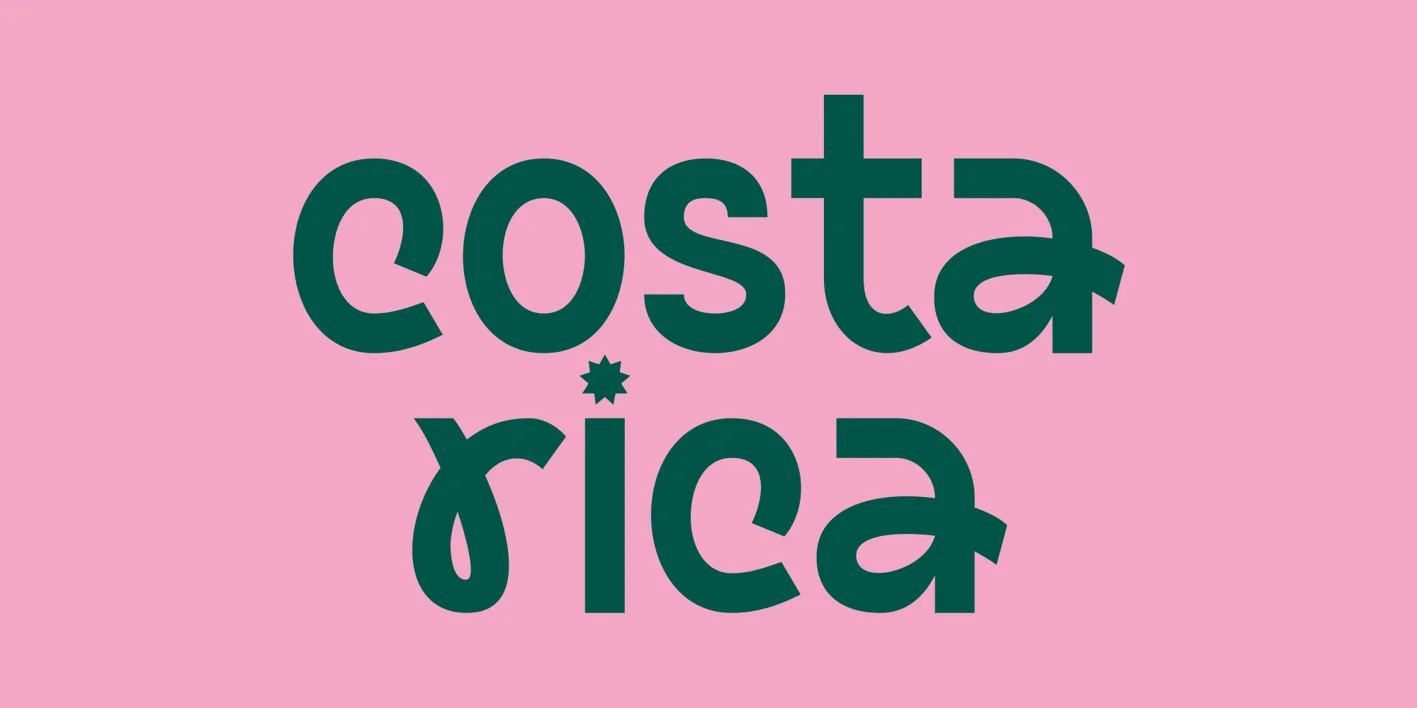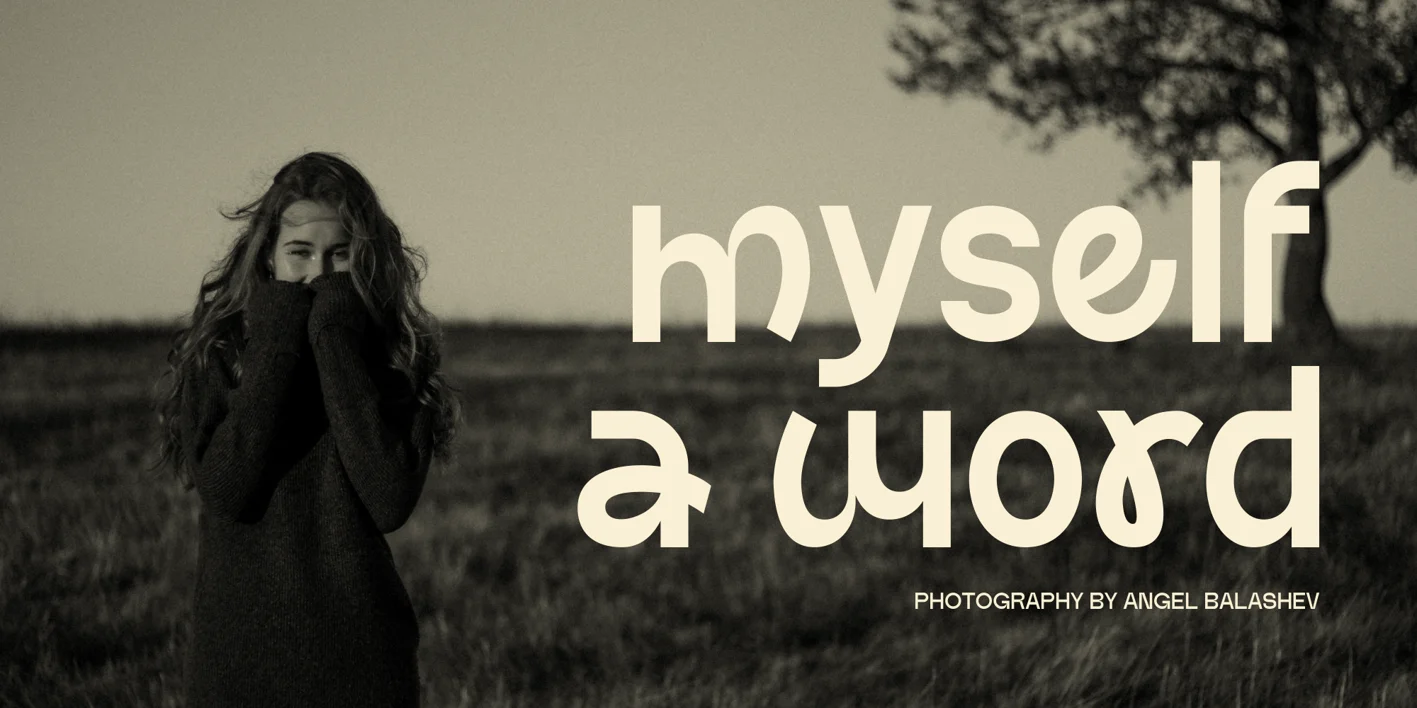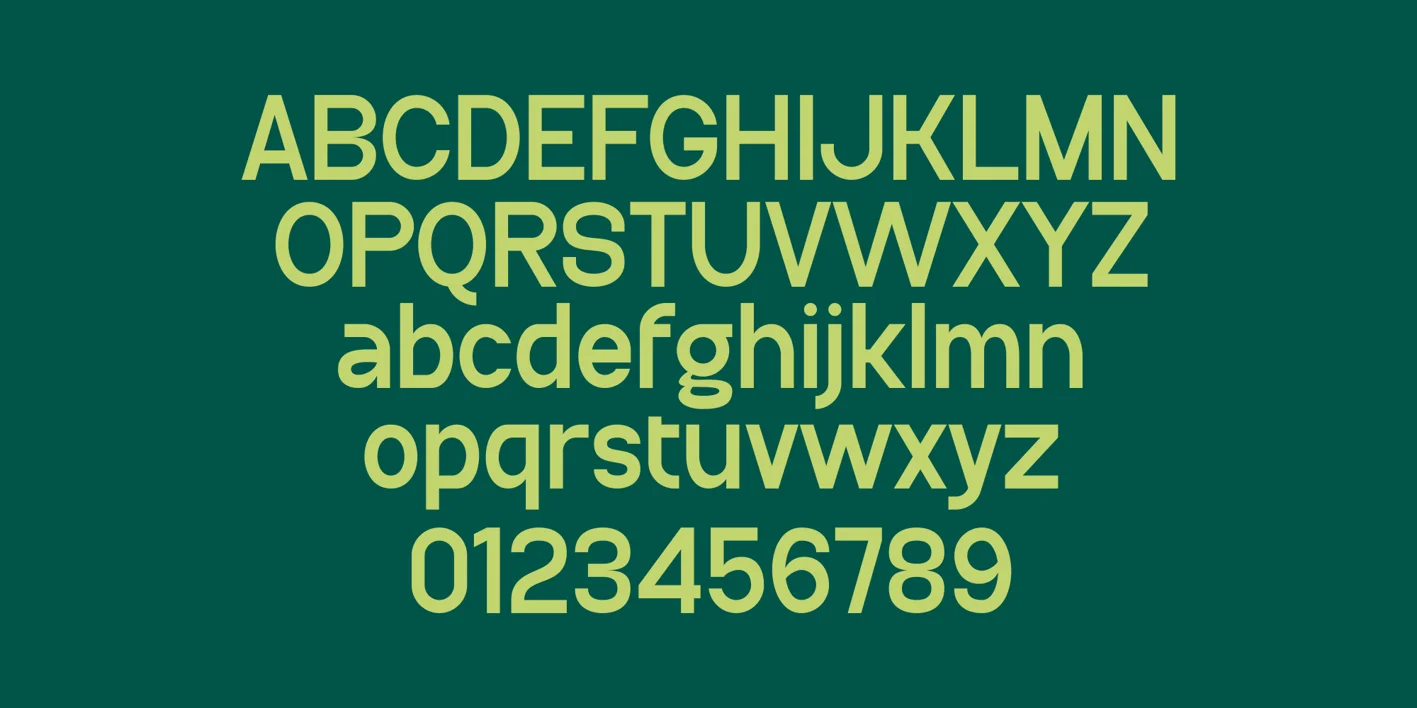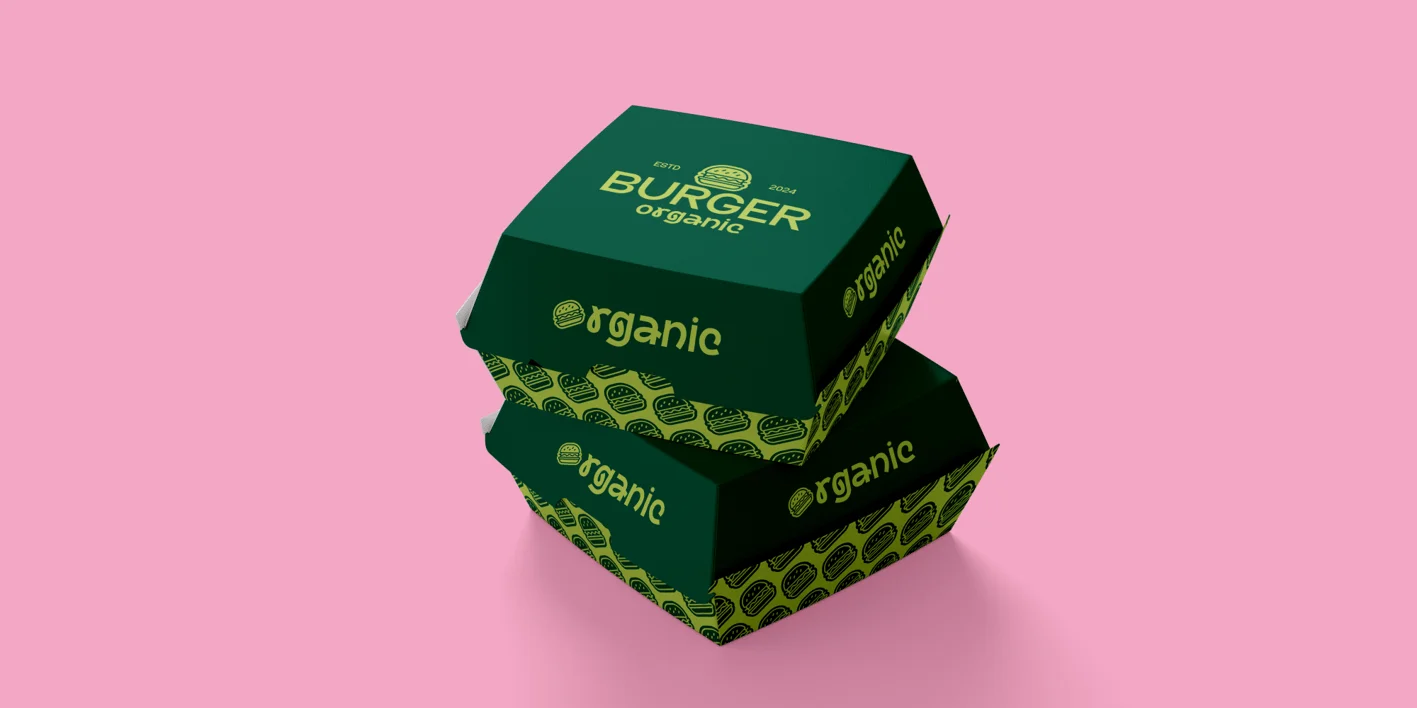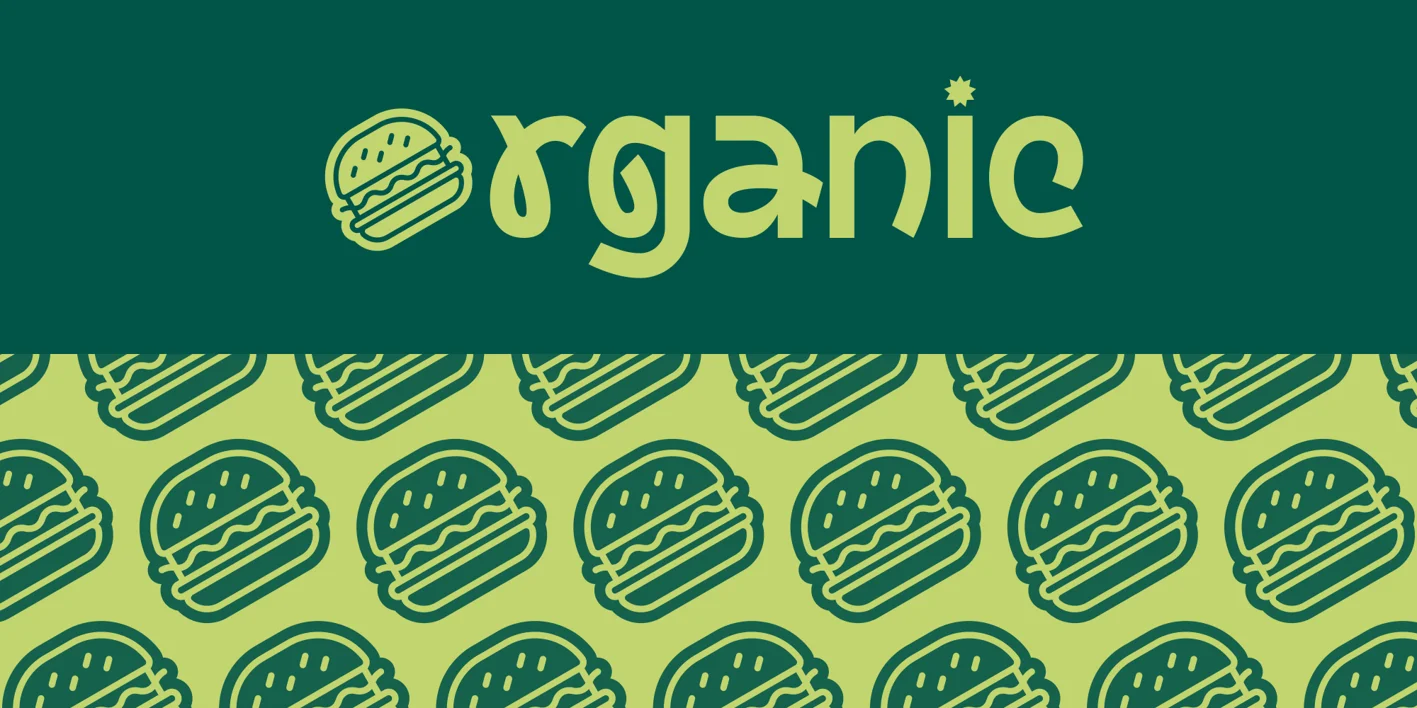
Defante Font
A good typeface communicates tone before a single word is read. Defante achieves this through versatility across print and screen contexts. The typeface brings a versatile sensibility to a broad range of creative disciplines, with optical balance across all weights that holds up whether the work is print-first or screen-first.
In practice, Defante proves particularly effective for social media graphics, web design, environmental graphics, poster creation, product labels. Designers reaching for it find that the type decisions feel resolved rather than laboured — a useful quality when client timelines are tight.
The range of applications extends to advertising campaigns, editorial layouts, brand identity systems, signage systems. That breadth is deliberate: the proportions and spacing were stress-tested across a wide range of mock briefs before the typeface was finalised.
Defante sits comfortably alongside both classic and contemporary typefaces in multi-font hierarchies. It takes direction rather than competing for attention — a quality that experienced designers know is harder to find than it appears.
UX designers establishing typographic systems for digital products find Defante a reliable choice for projects that demand both personality and restraint. The design avoids the self-conscious quirkiness that dates quickly, settling instead for considered distinctiveness that holds up over time.